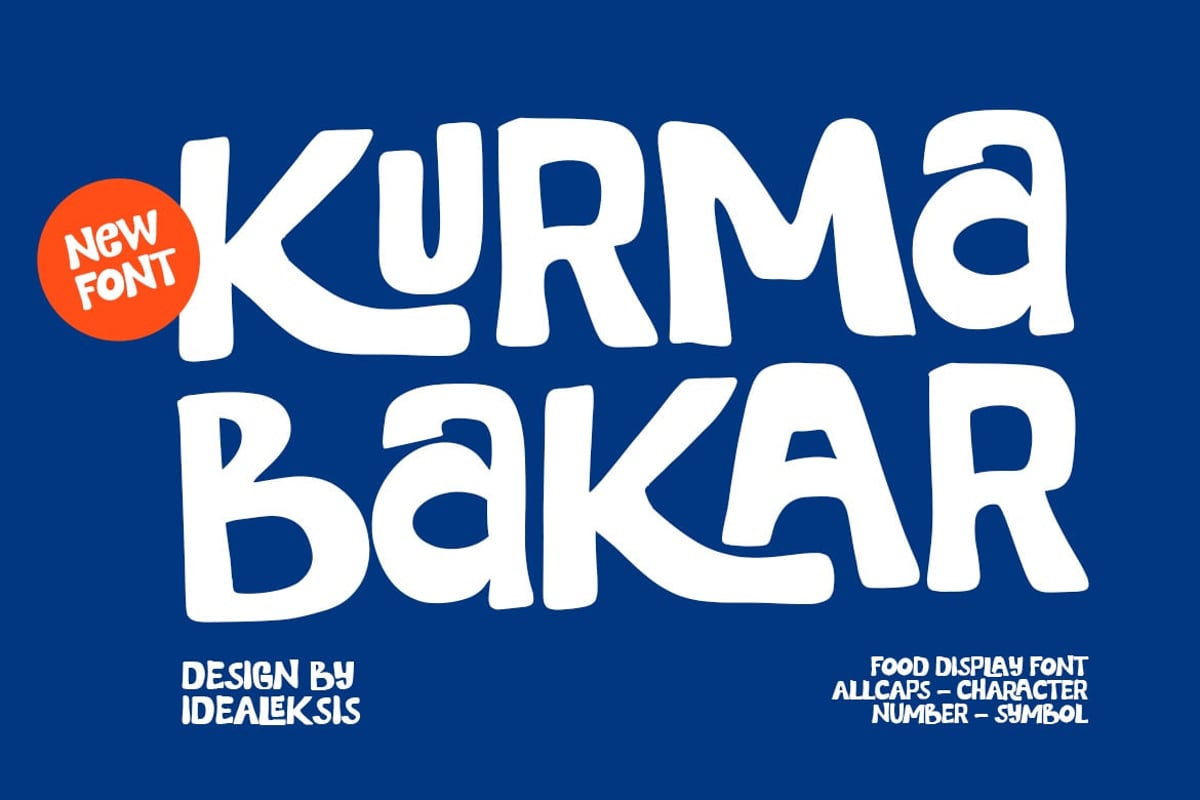
Kurma Bakar - Food Font
Bold, chunky typeface with hand-cut charm perfect for bakeries, cafes, and food branding that demands attention. This distinctive typeface showcases heavy, irregular strokes with a handcrafted paper-cut aesthetic that brings warmth and energy to any design. The letterforms are chunky and bold with varying widths and organic, rounded terminals that create a friendly, approachable vibe. The intentionally imperfect alignment and subtle wobbles in the outlines emphasize its artisanal origin, while t...